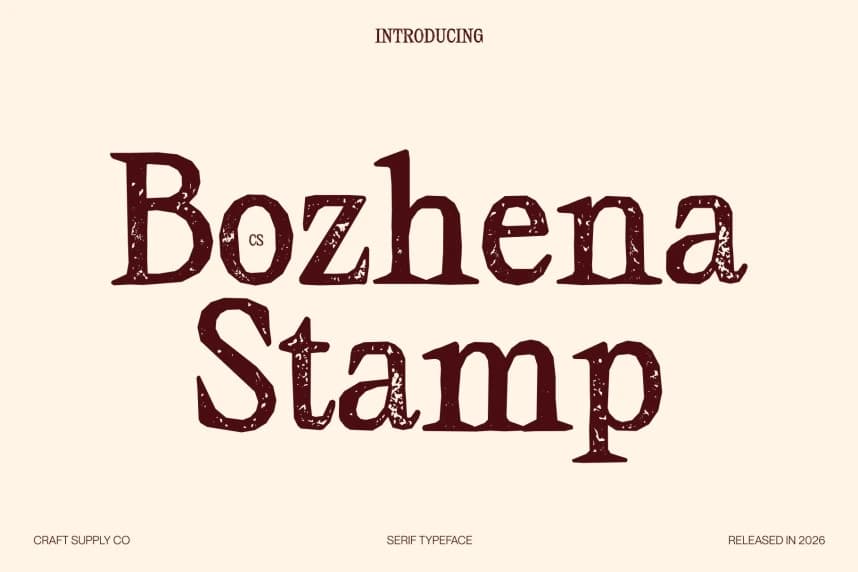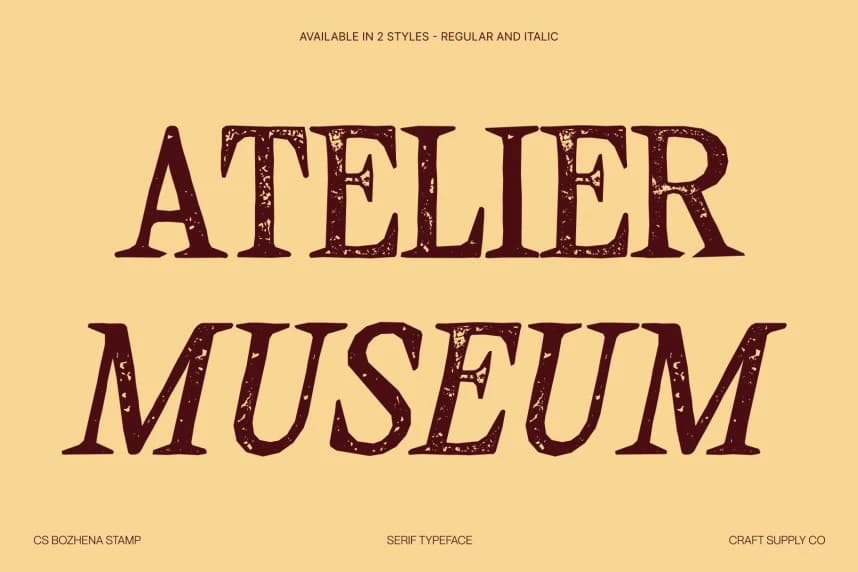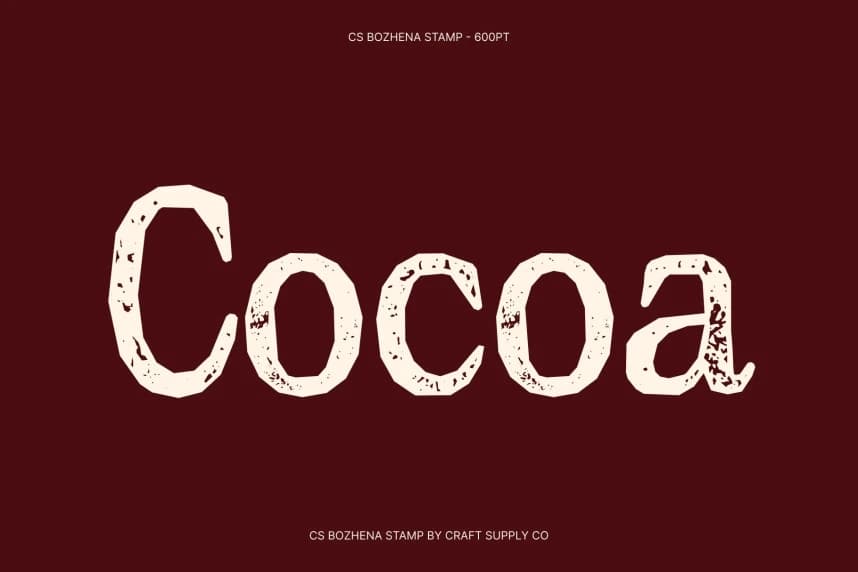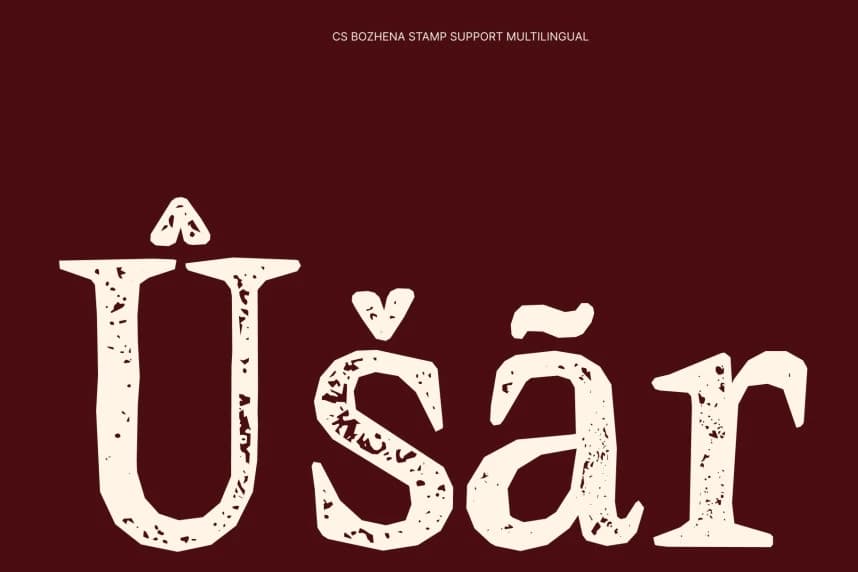
CS Bozhena Stamp Font
CS Bozhena Stamp Font – Contemporary Serif with Textured Timeless Elegance Modern Classic Serif with a Stamped Impression This refines its contemporary serif structure with a subtle stamped texture, adding depth and artisanal character to its timeless form.